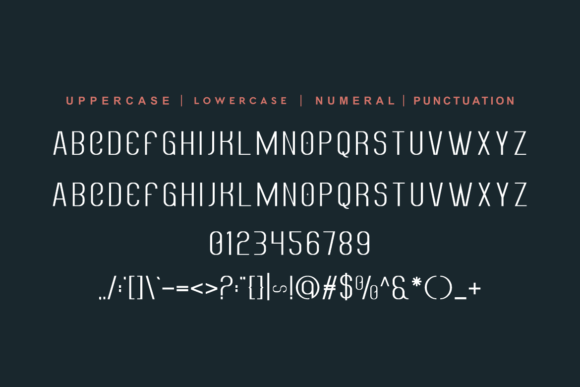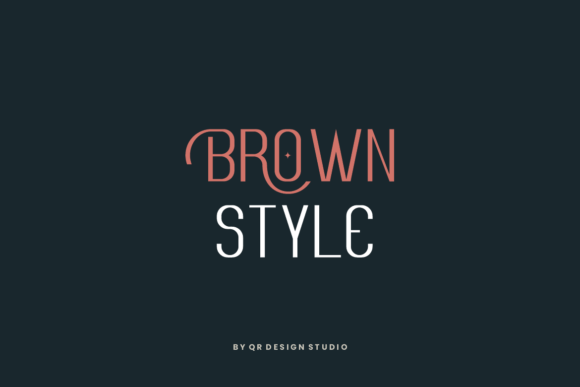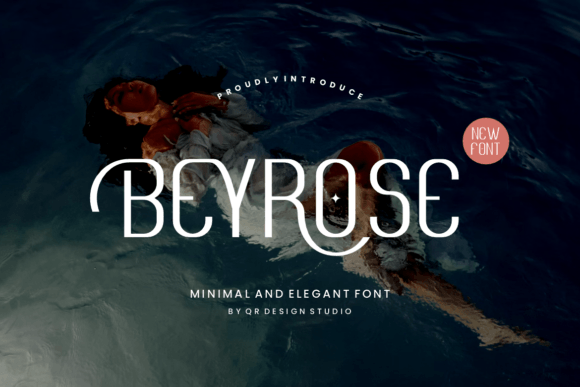
Beyrose Font
Designer: qrdesignstd
Beyrose Font is a fancy font that looks really fancy and classy. It’s perfect for making things like invitations or posters look elegant and stylish. With its graceful curves and sleek lines, Beyrose adds a touch of sophistication to any project.